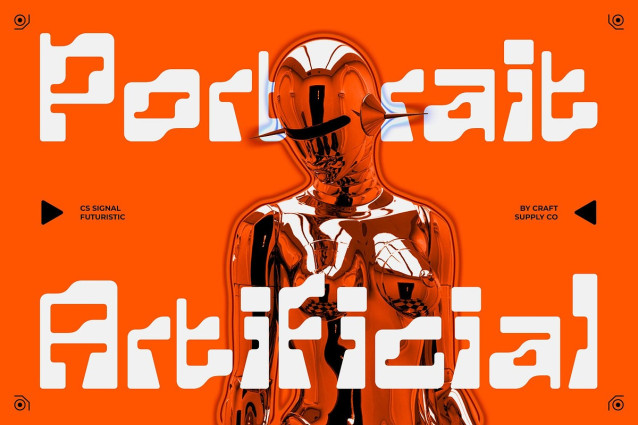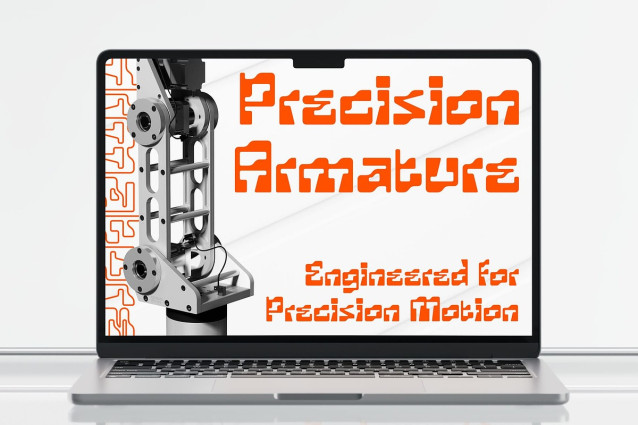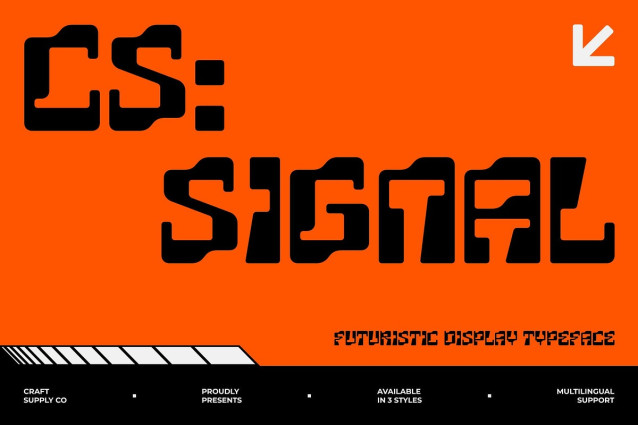
CS Signal Font
CS Signal Font is a stylish display font that captures the aesthetics of technology and digital culture. With its bold and dramatic presence, it embodies the sleek sophistication of the modern era while retaining a unique edge.
Distinctive Block Structure Featuring irregular block forms, CS Signal evokes the feel of signals, circuits, and mechanical systems. This distinctive structure gives the font a cutting-edge character, making it perfect for projects that aim to stand out with a futuristic or industrial vibe.
Perfect for Technology and Digital Projects CS Signal thrives in tech-driven designs such as digital branding, futuristic posters, EDM covers, and gaming visuals. Its mechanical feel and bold structure bring strength and innovation to every layout, ensuring a powerful visual impact.
Bold Versatility for Branding Beyond tech and digital contexts, CS Signal also adapts well to branding, logos, and experimental editorial design. Its dramatic look ensures attention, while its unique character helps define a strong, forward-looking identity.